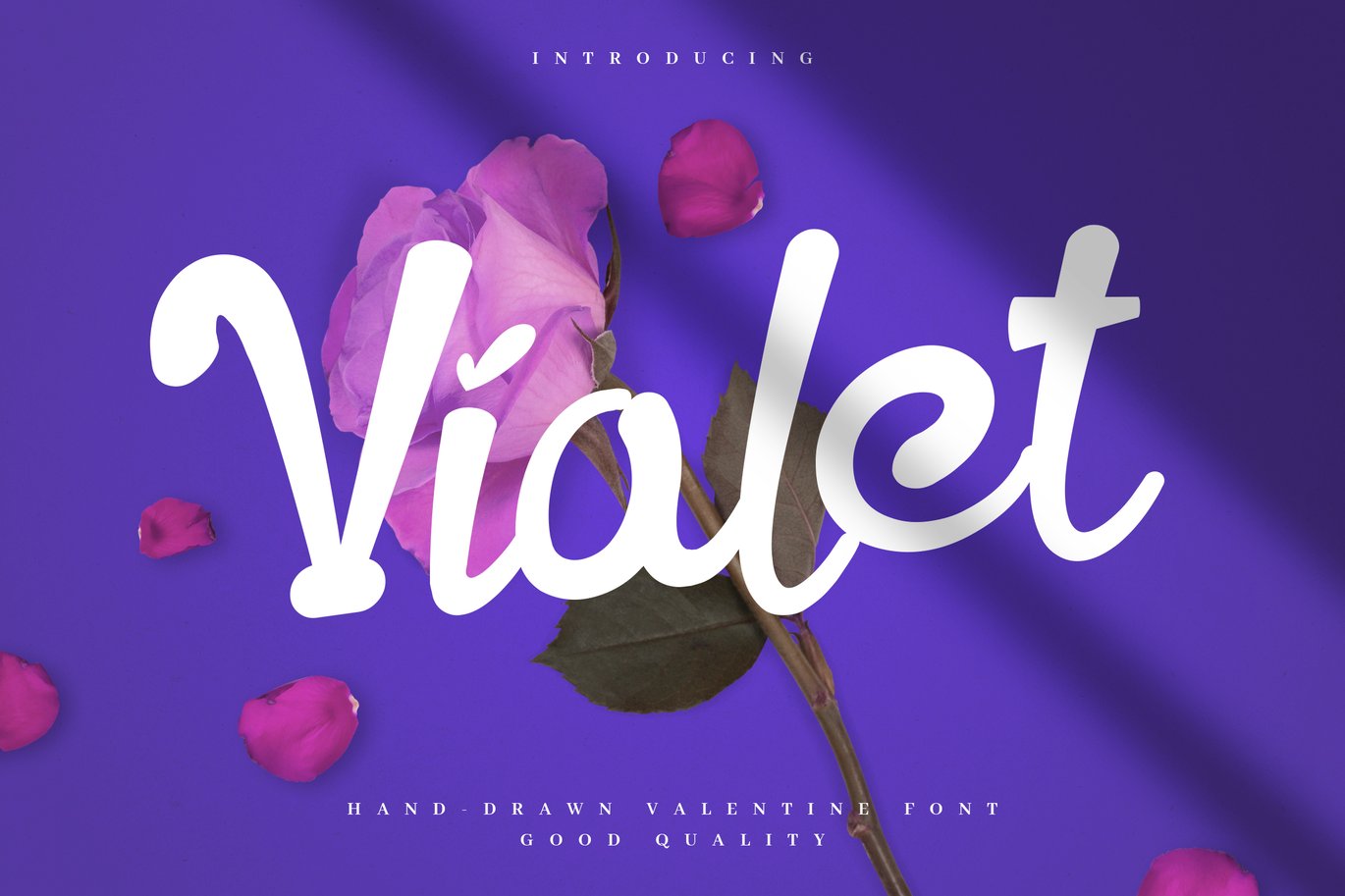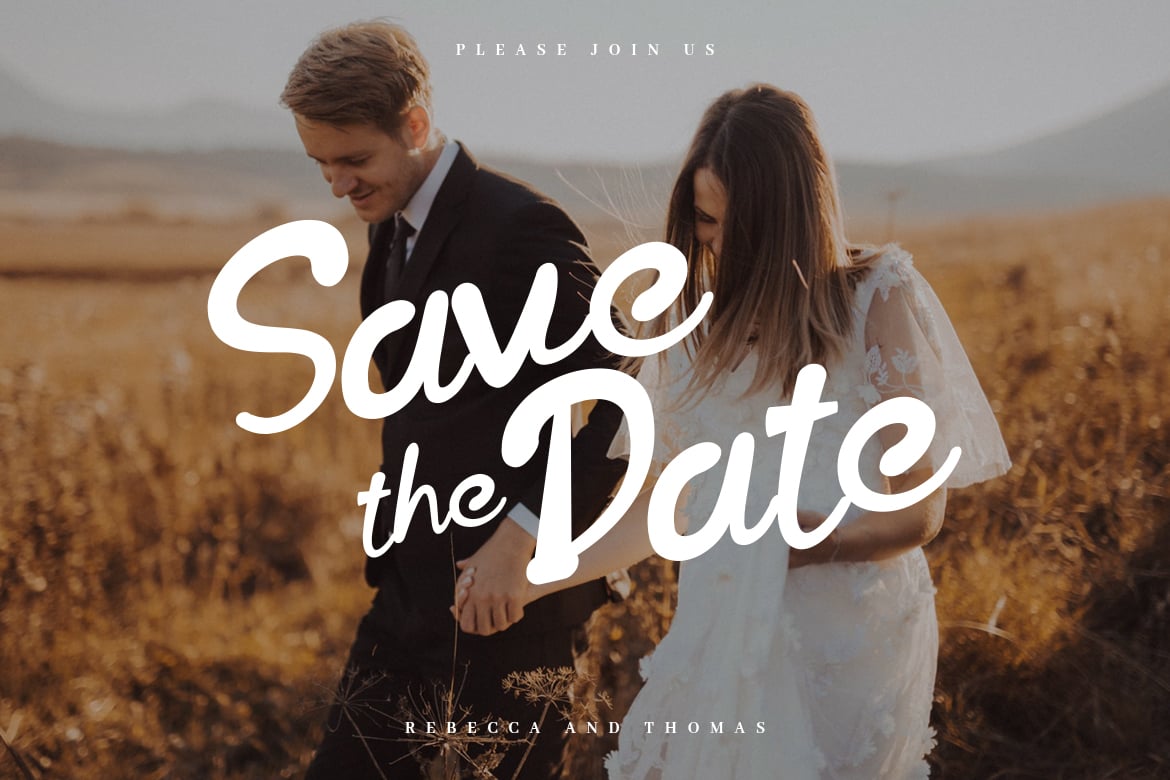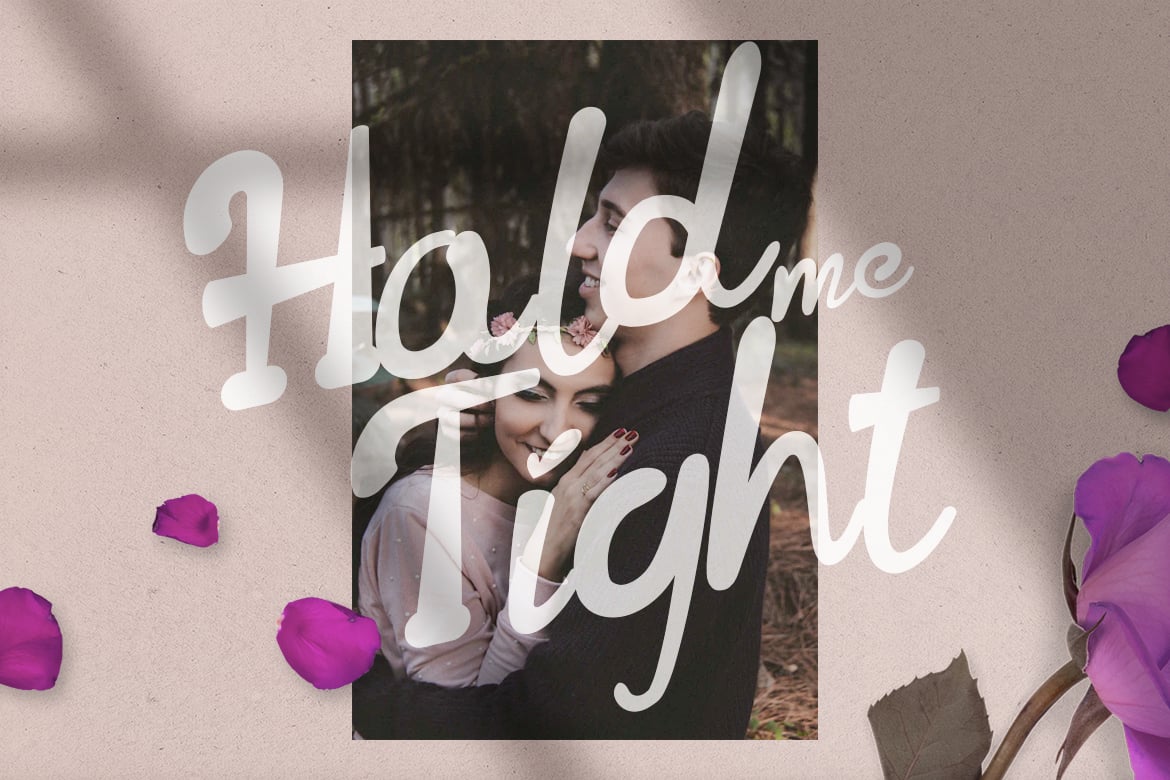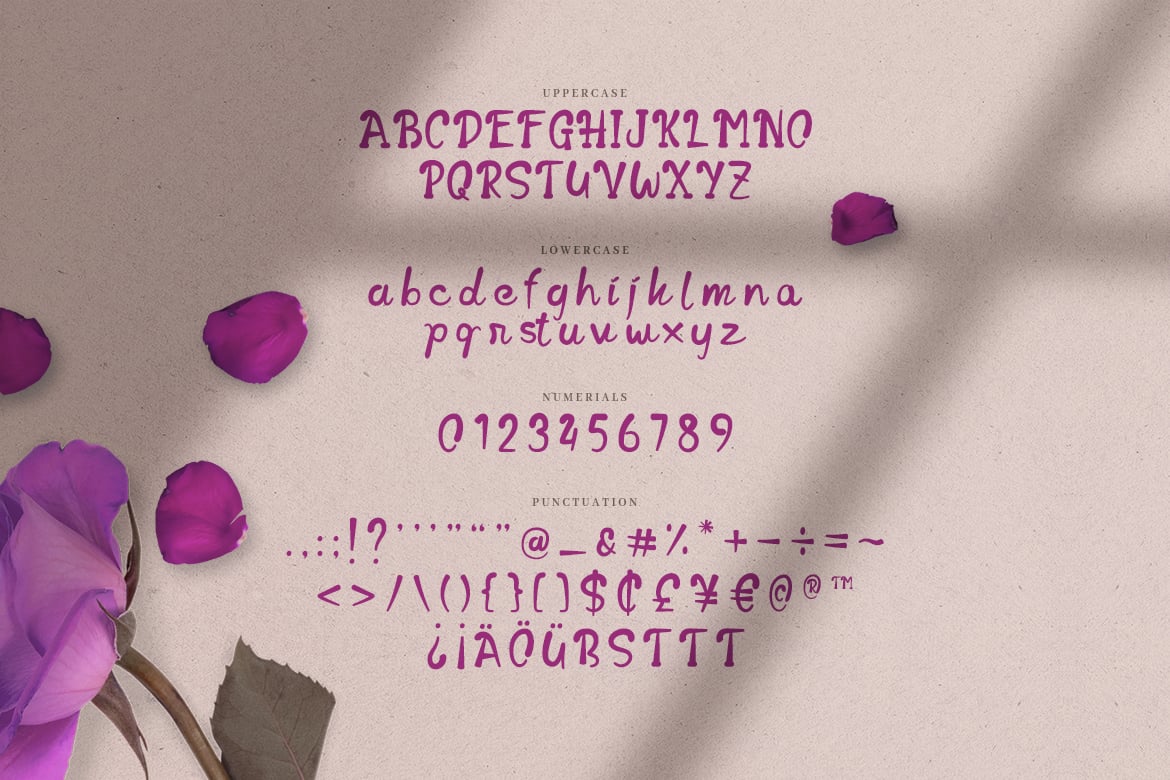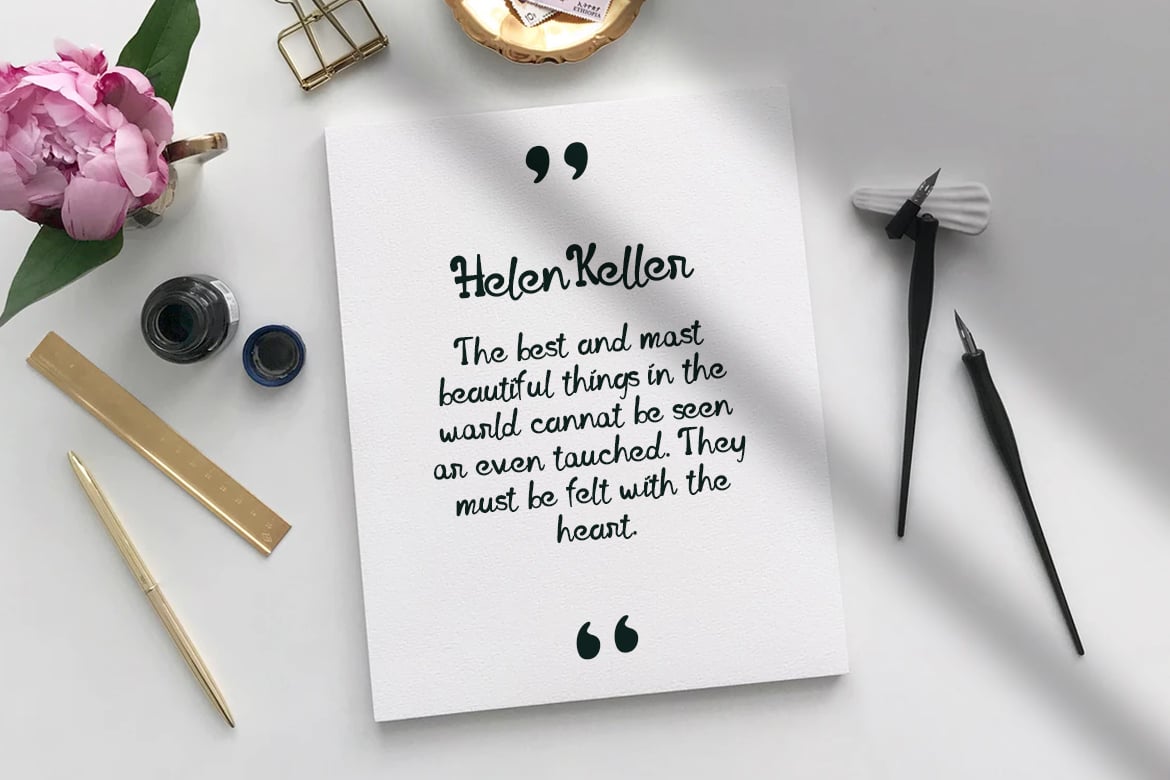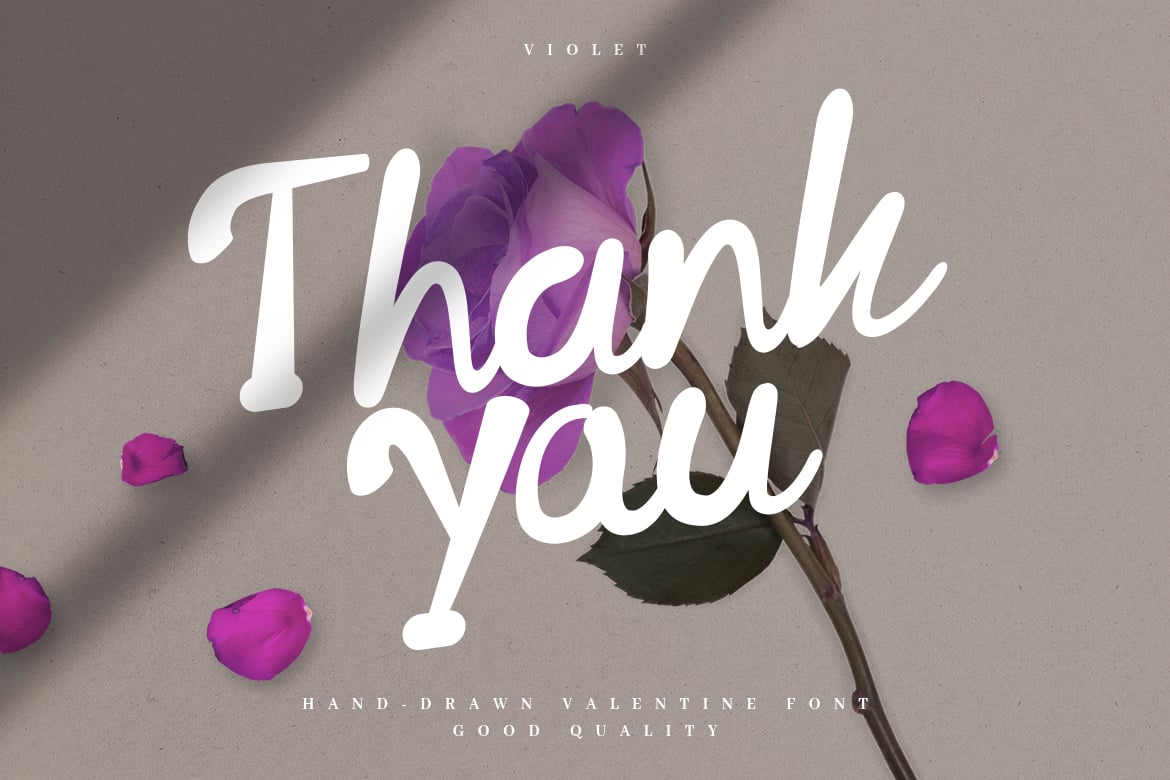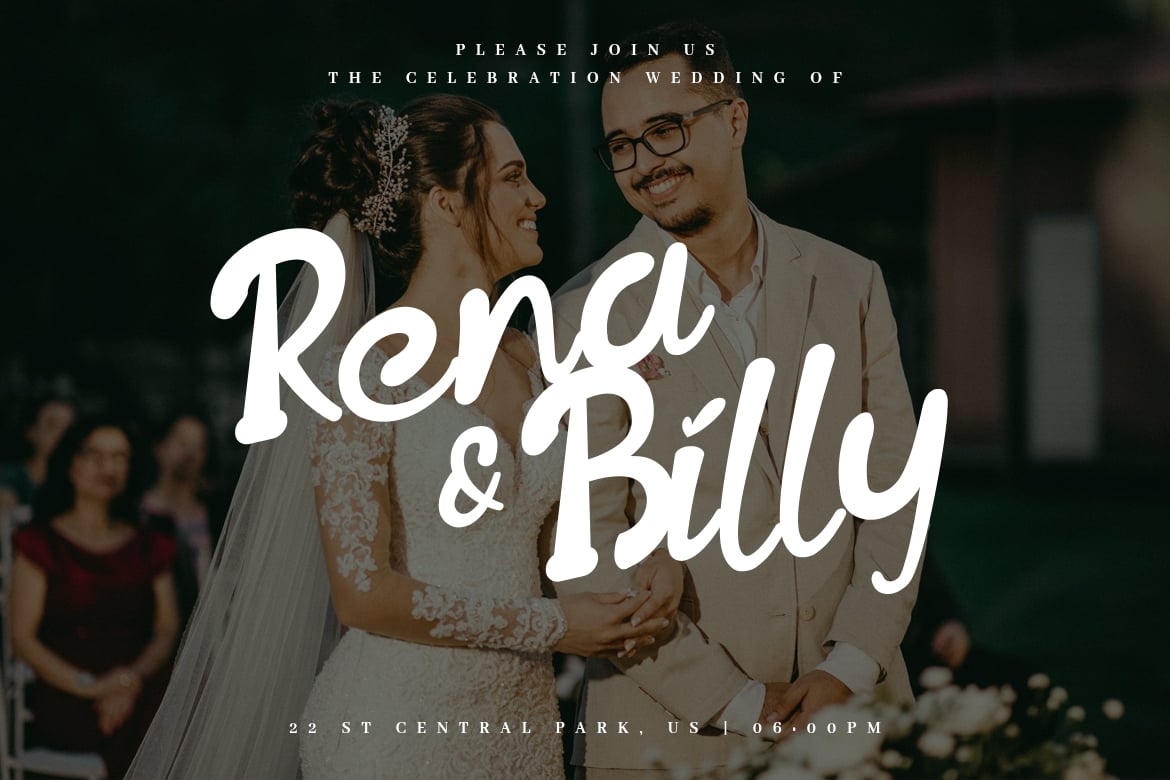
Violet – Bold Valentine Font
Are you looking for an bold font for valentine? We can help! Try to download our Violet font. The font is suitable to use for all all purpose. Try to use it on Wedding invitation, greeting card, poster, quotes, postcard, photography, branding, editorial, valentine and signature to see the best of it π